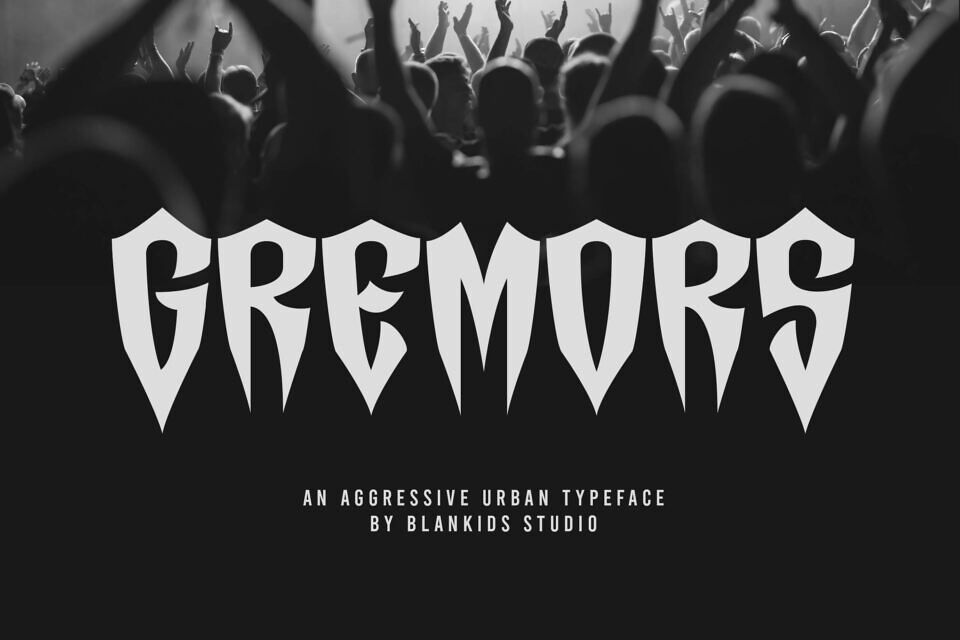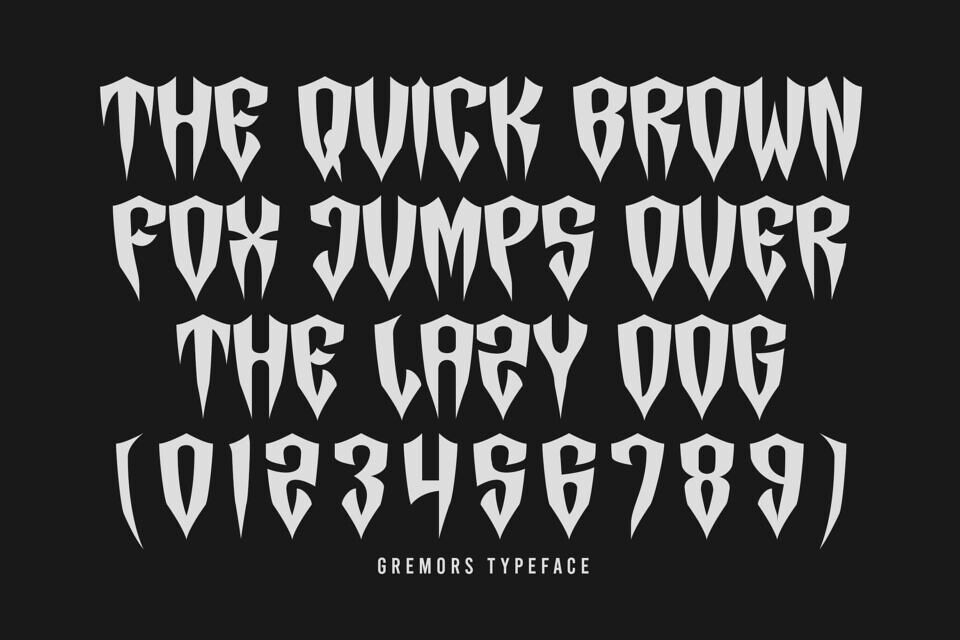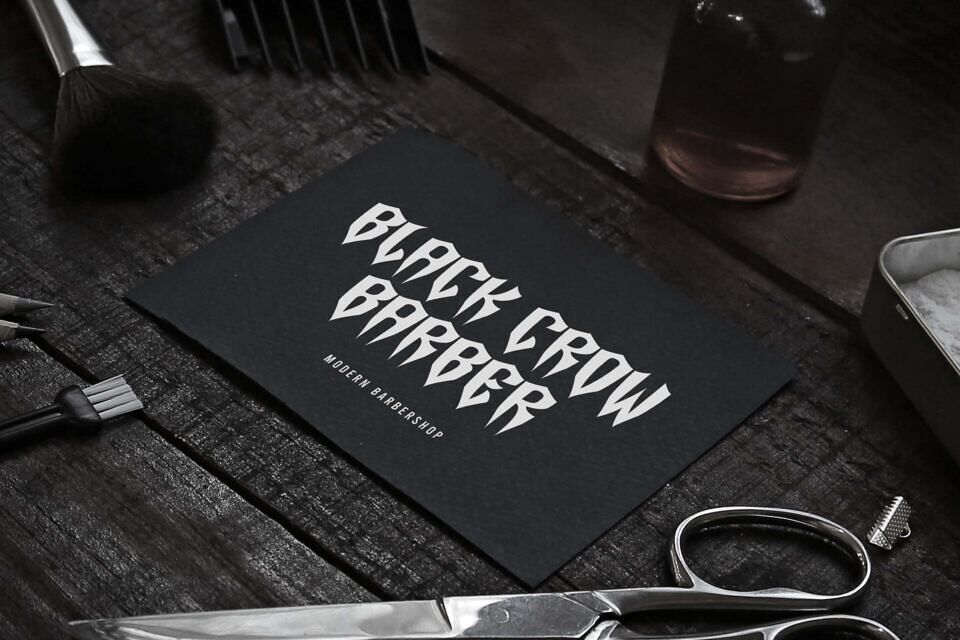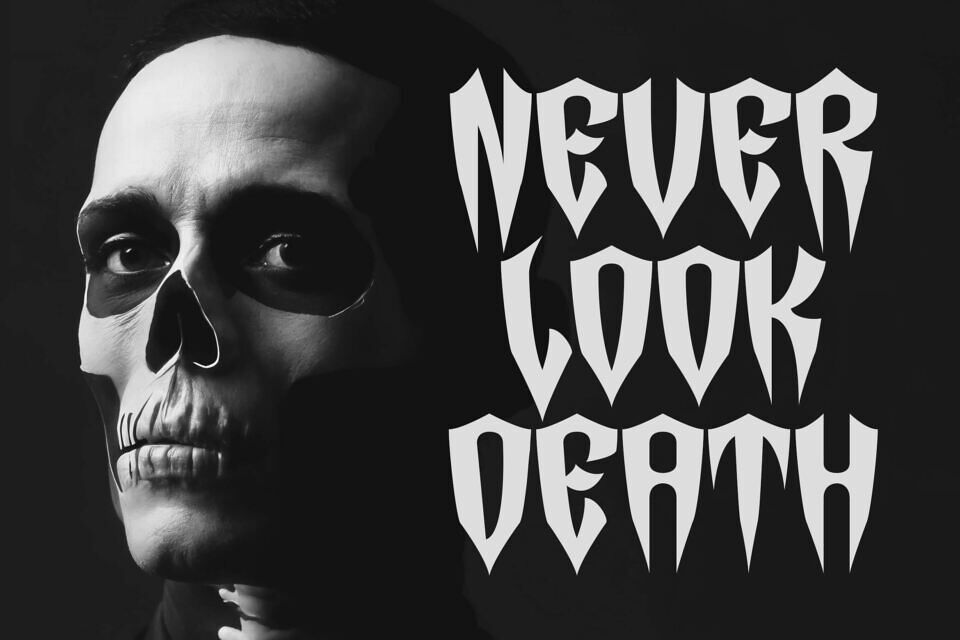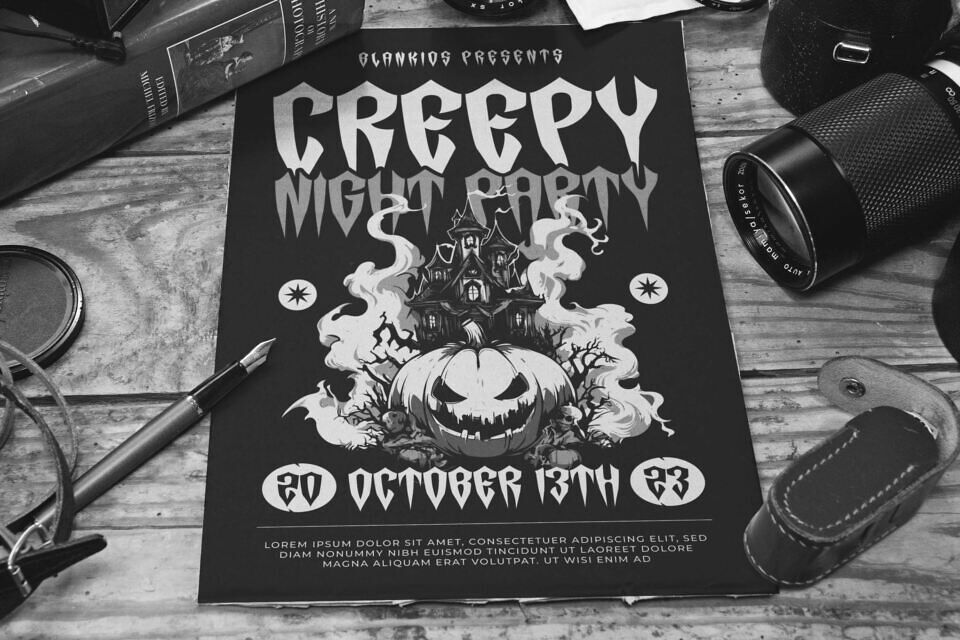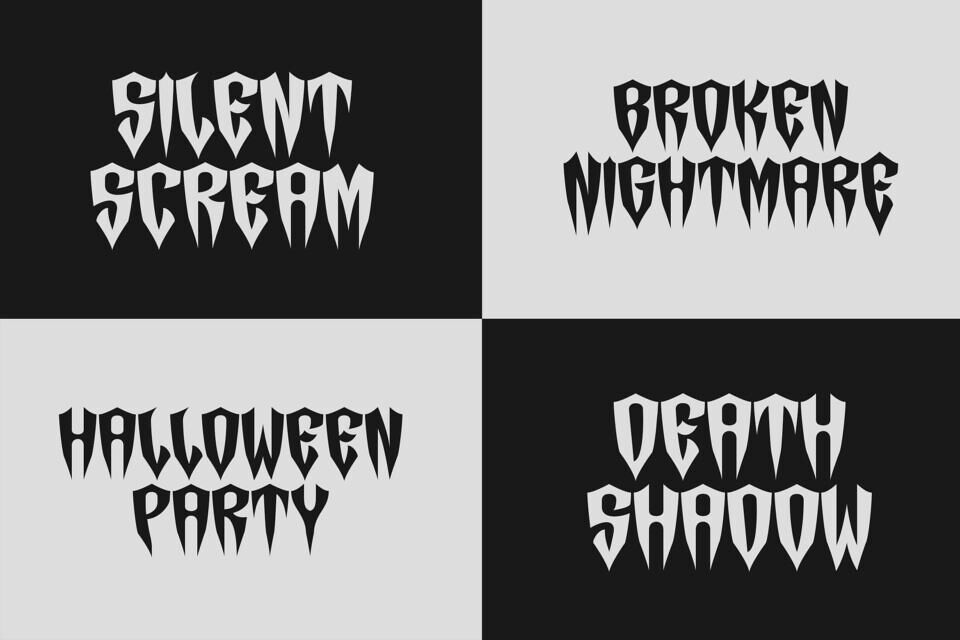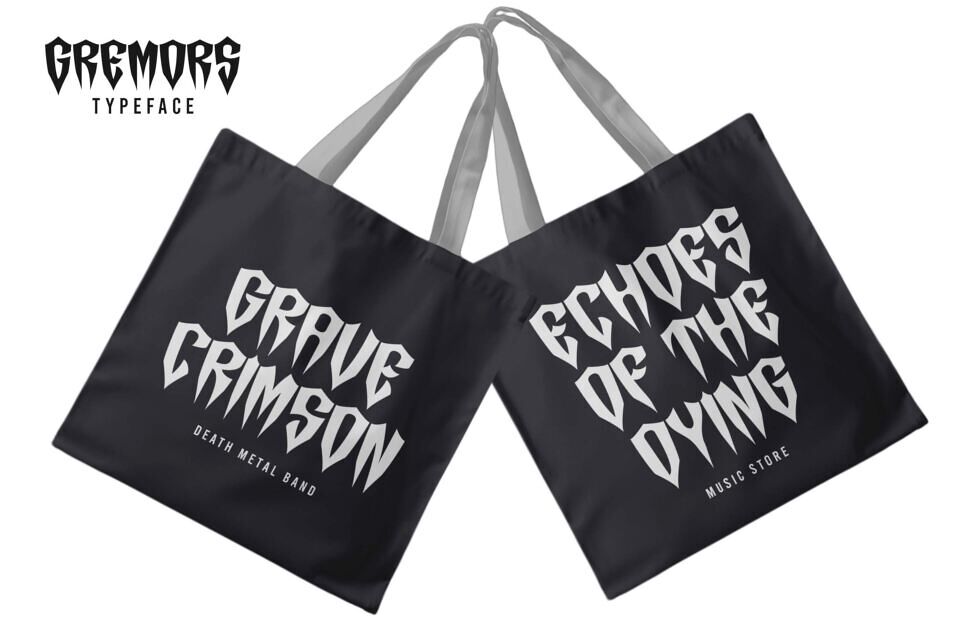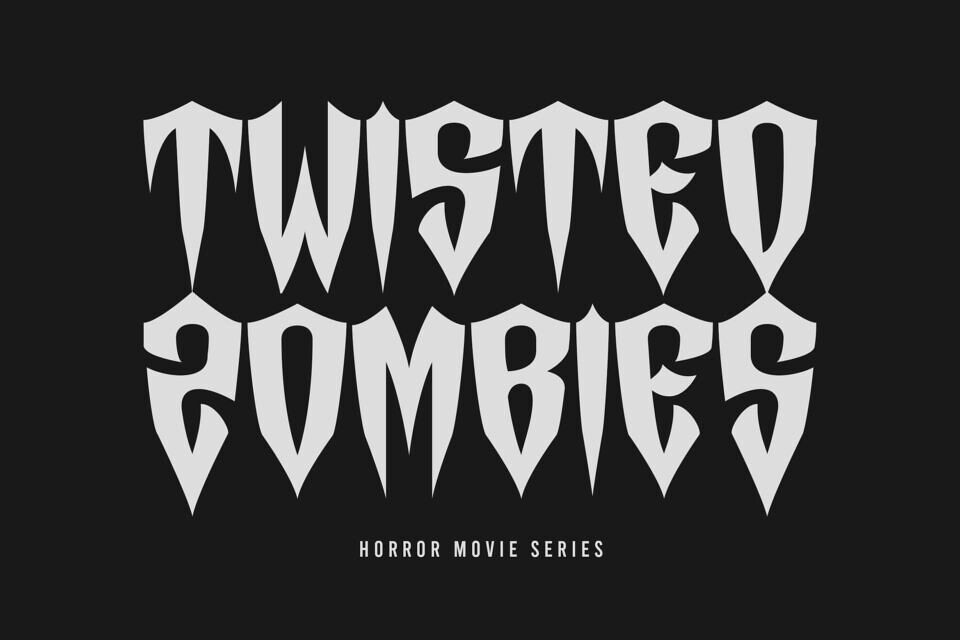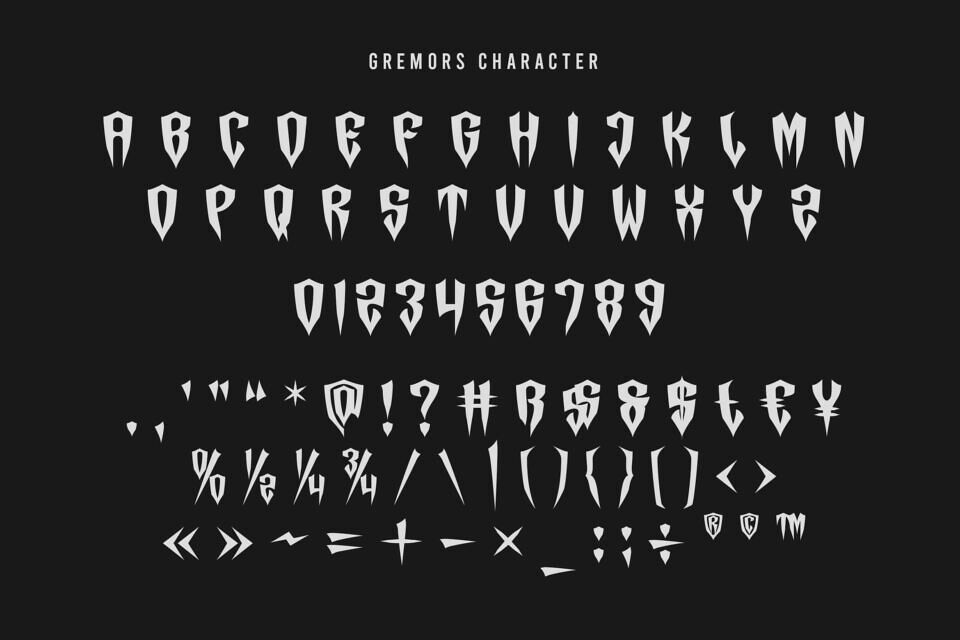
Gremors Font
Gremors is an Aggresive Urban Typeface made for any professional project branding, such as logotype, watermarks, poster, branding, promotions, product packaging, etc. Every letter has a horror style design.
Gremors font includes a full set of horror uppercase and lowercase letters, numerals and punctuation. This font has a horror style. See the previews above to get some inspiration on how to use them. Happy designing!
Designed by: Blankids Studio